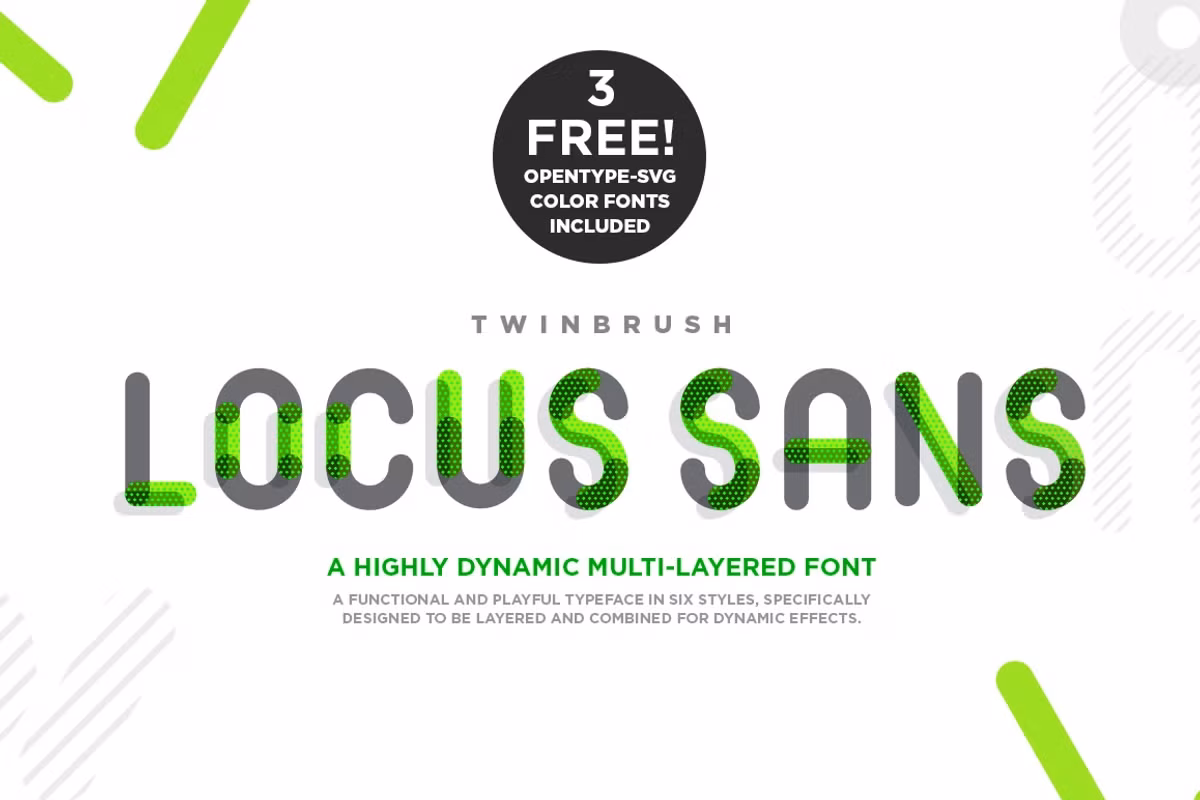
Locus Sans Display and Color Font Free Download
Enhance your designs with the modern and vibrant Locus Sans Display and Color Font Free Download. This unique font features bold, clean sans-serif letterforms, along with colorful variations, making it perfect for headlines, logos, posters, and projects that need both clarity and flair.
Locus Sans Display stands out with its strong, geometric shapes, while the color font variant adds a playful and dynamic element to your typography. It includes uppercase and lowercase letters, numerals, punctuation, and multilingual support, offering versatility for experimenting with vibrant layouts.